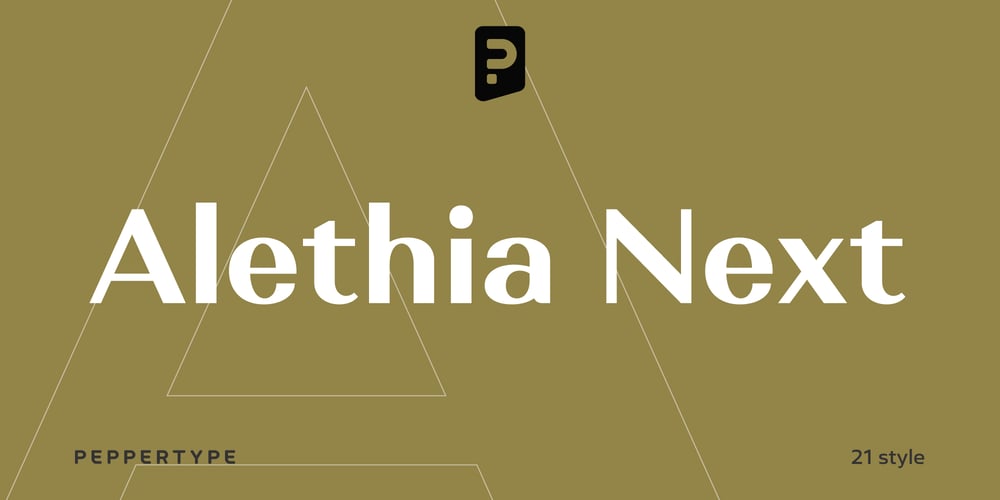
Alethia Next Font Family was designed by Oleh Lishchuk and published by Pepper Type. Alethia Next contains 21 styles and family package options. Alethia Next is a grotesque sans-serif typeface with high contrast in all weights. It has been designed to serve as a display typeface in various editorial projects, such as magazines or corporate brochures, as a sans-serif pair to serif types of modern style. Alethia Next comes in 7 weights + matching italics and upright italics, each supporting numerous Latin-based languages as well as major Cyrillic languages including Bulgarian local forms. It is packed with OpenType features like ligatures, small caps, and numerous alternatives.